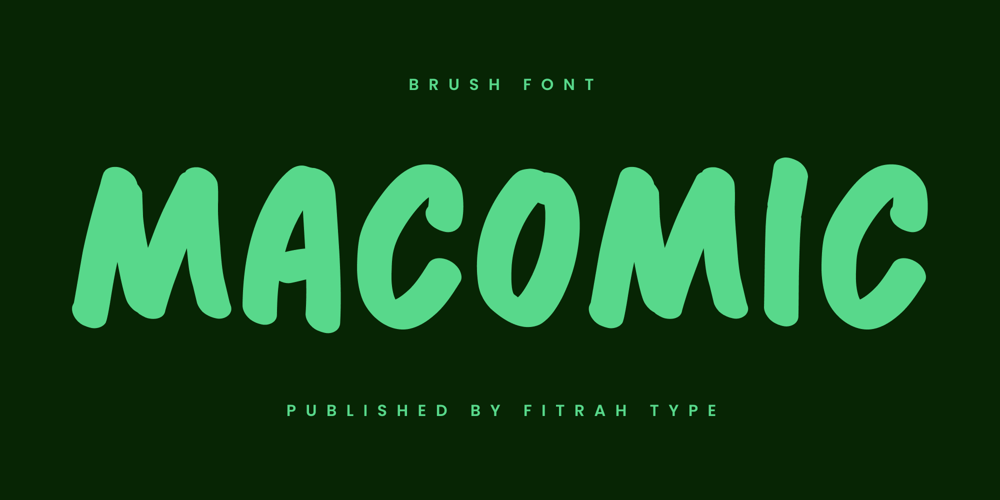
Macomic Brush Font Family was designed by Moch Fitrah Hidayat and published by Fitrah Type. Macomic Brush contains 1 styles and family package options. Macomic Brush is the newest typeface with a brush style. The entire typography has been designed to work on large sizes. This font ideal for designing merchandise, social media, marketing posts, product packaging & branding projects. Torges supports uppercase, lowercase, numerals and punctuation.